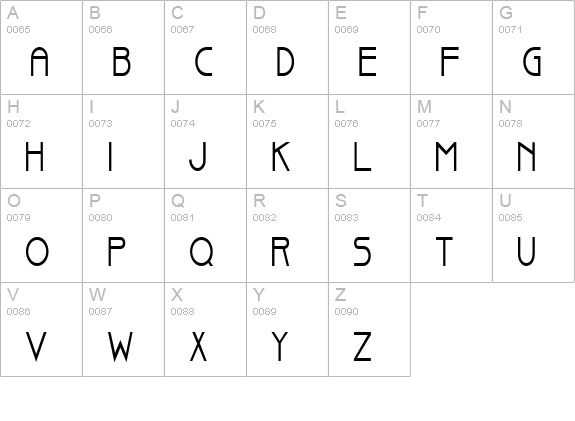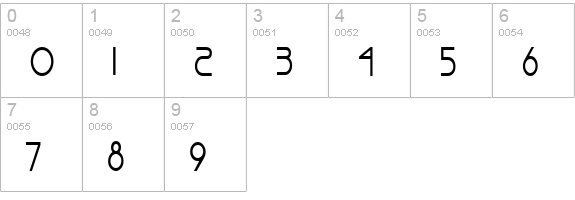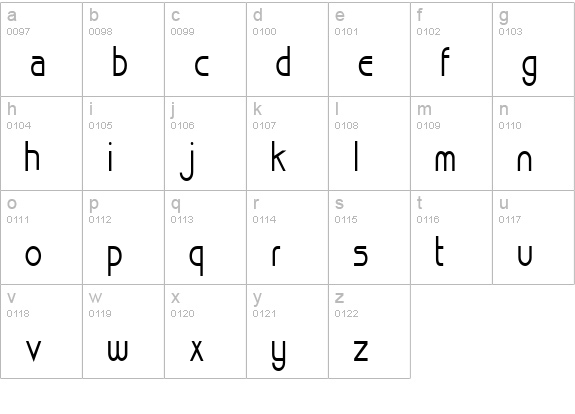
Basque Thin Bold is a delicate, low-contrast variant in the Basque typeface family \xE2\x80\x94 well suited to fashion editorial, minimal branding, and high-contrast display.